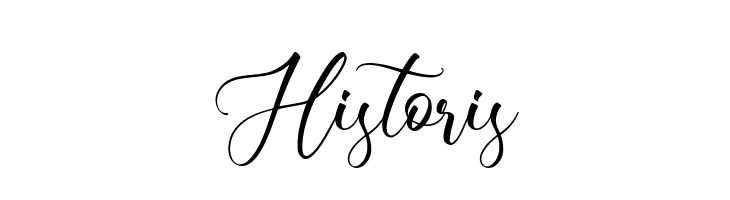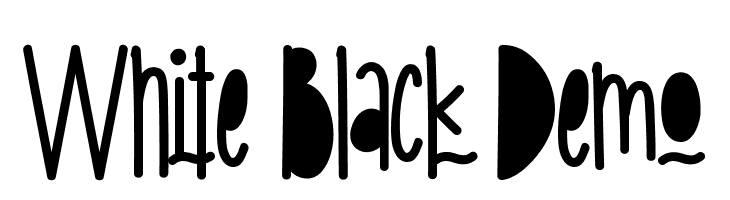
A playful, dynamic script font with a handwritten feel and smooth curves.
A bold, playful font with rounded, condensed letterforms and a flowing script style.
A dynamic and fluid script font with elegant, flowing strokes.
A playful, cookie-inspired font with bold, rounded characters and a dotted pattern.
A sleek, modern thin italic font with elegant strokes and a refined appearance.
A dynamic and flowing script font with elegant, cursive letterforms.
A bold, brush-style font with dynamic, expressive strokes.
A playful and modern handwritten font with fluid, dynamic strokes.
A playful, hand-drawn font with bold, whimsical characters.
A bold, cursive font with a hand-drawn, brush-like appearance.